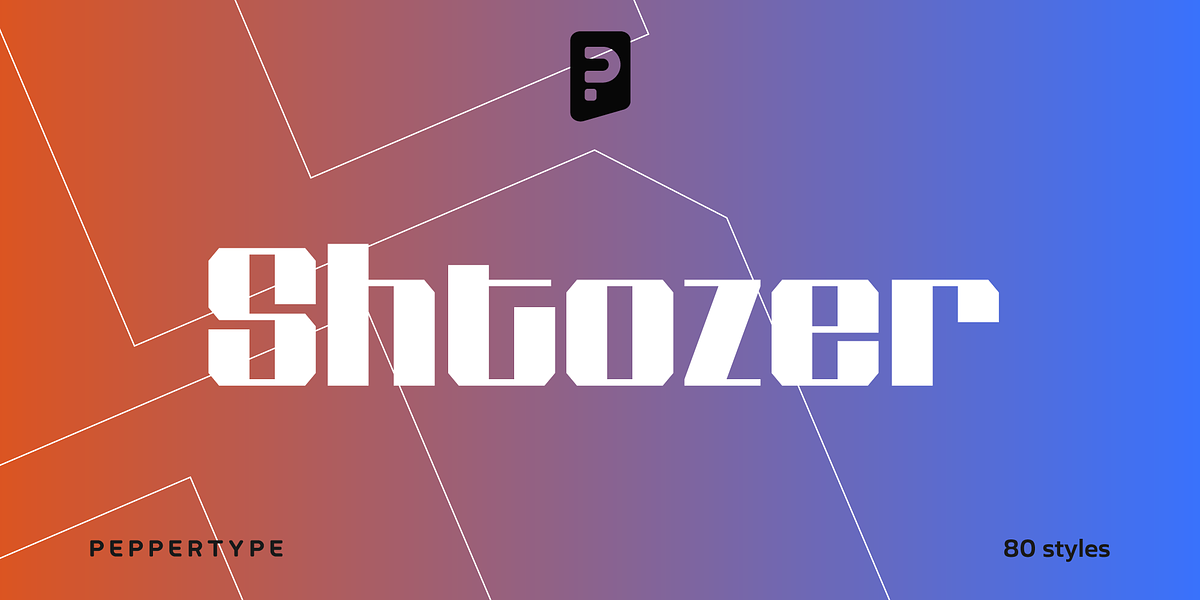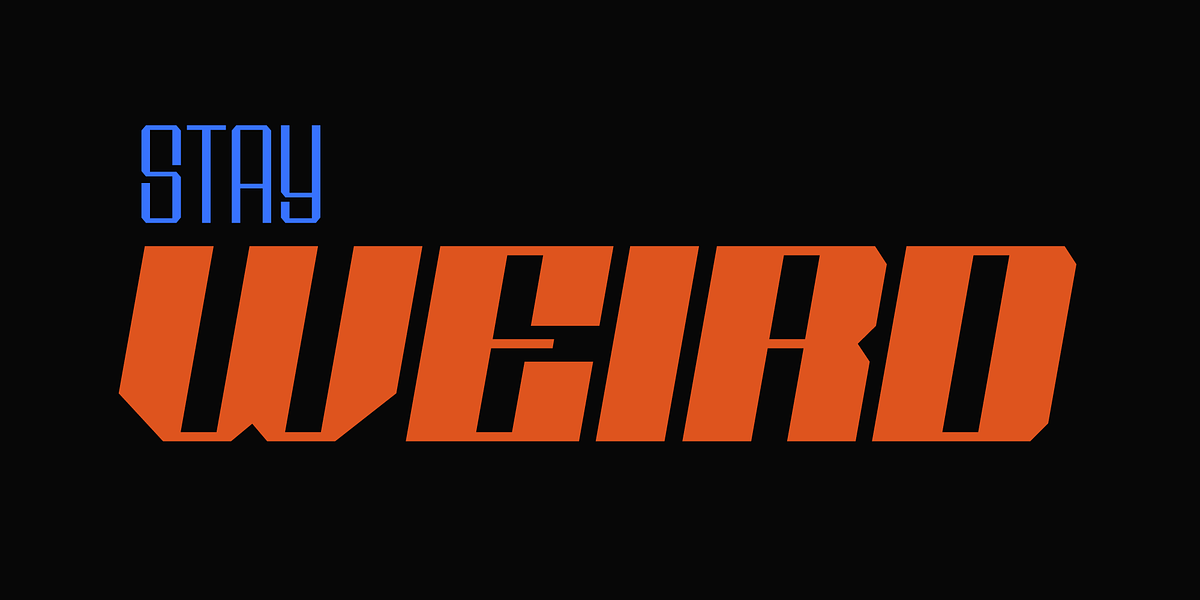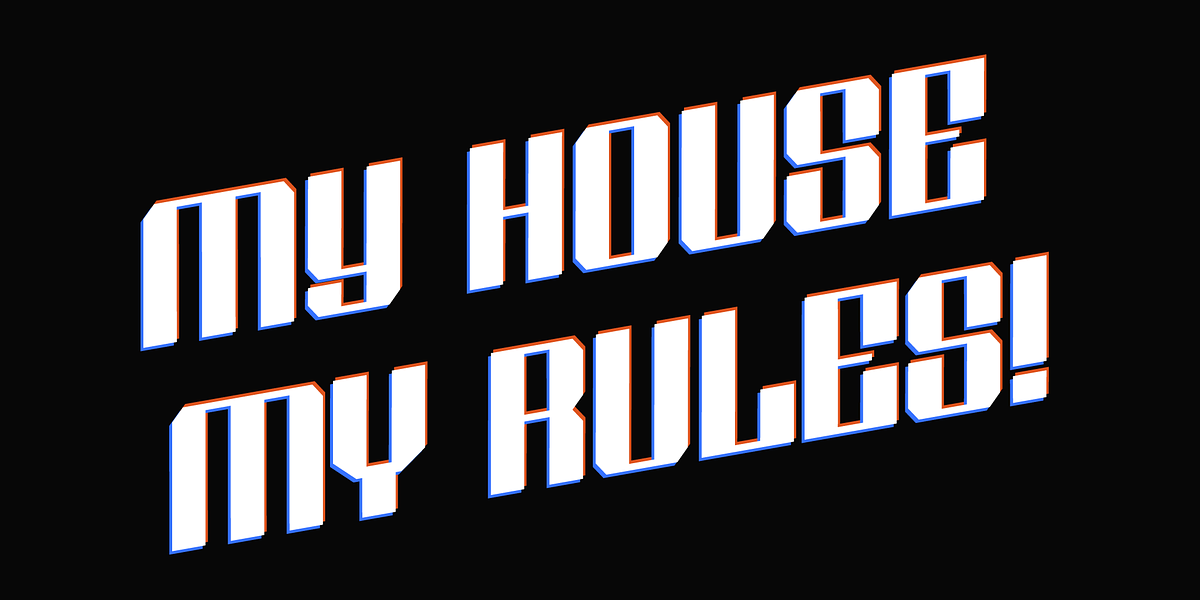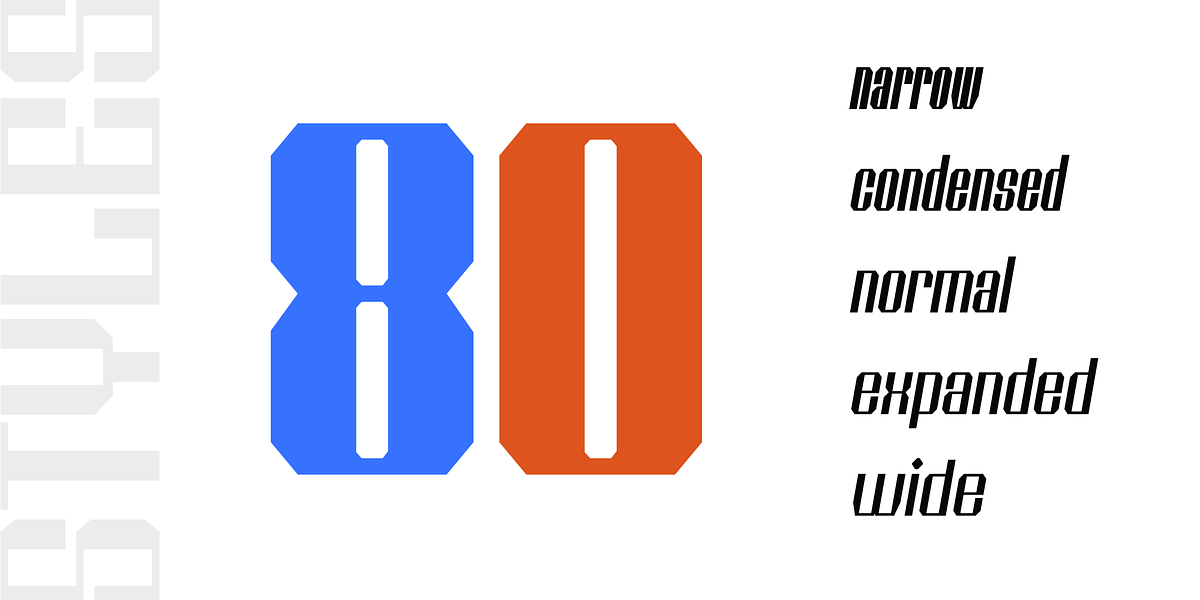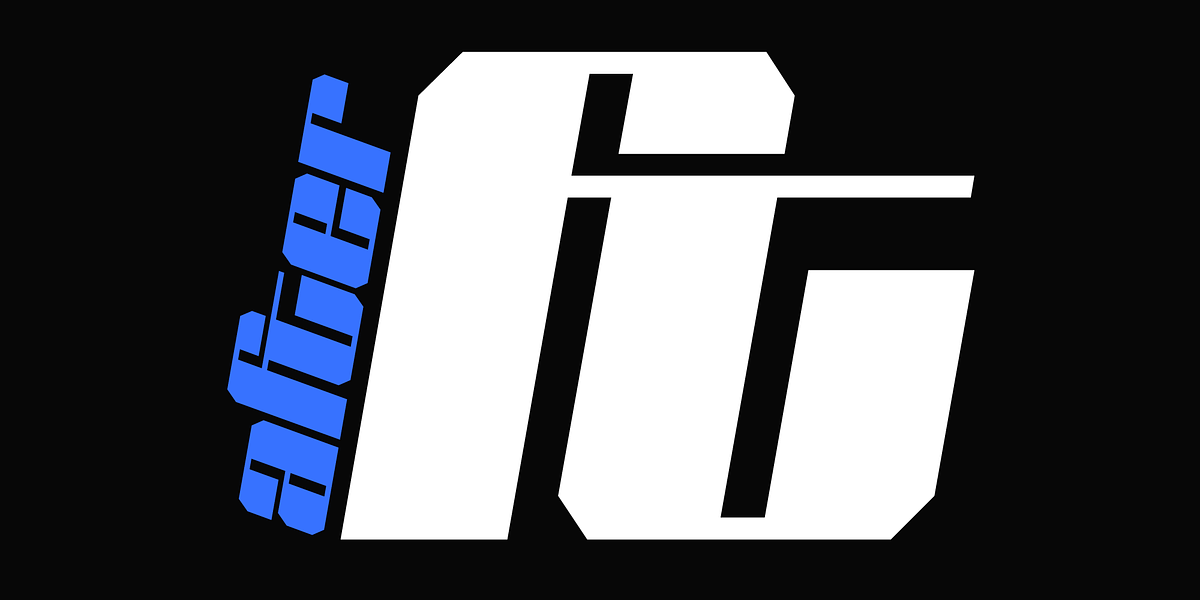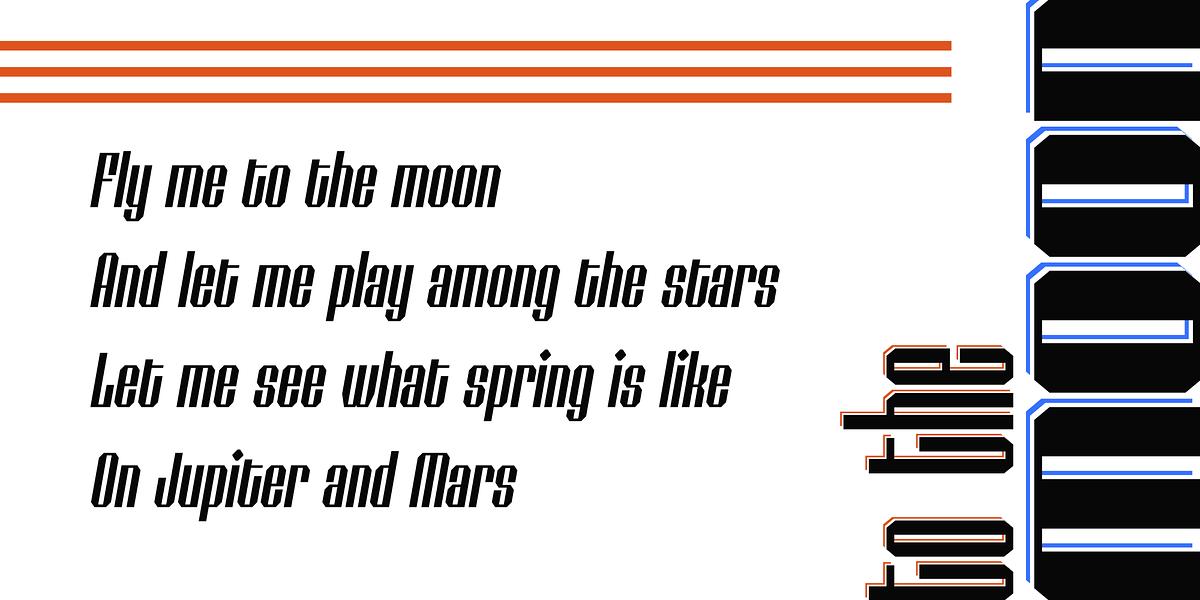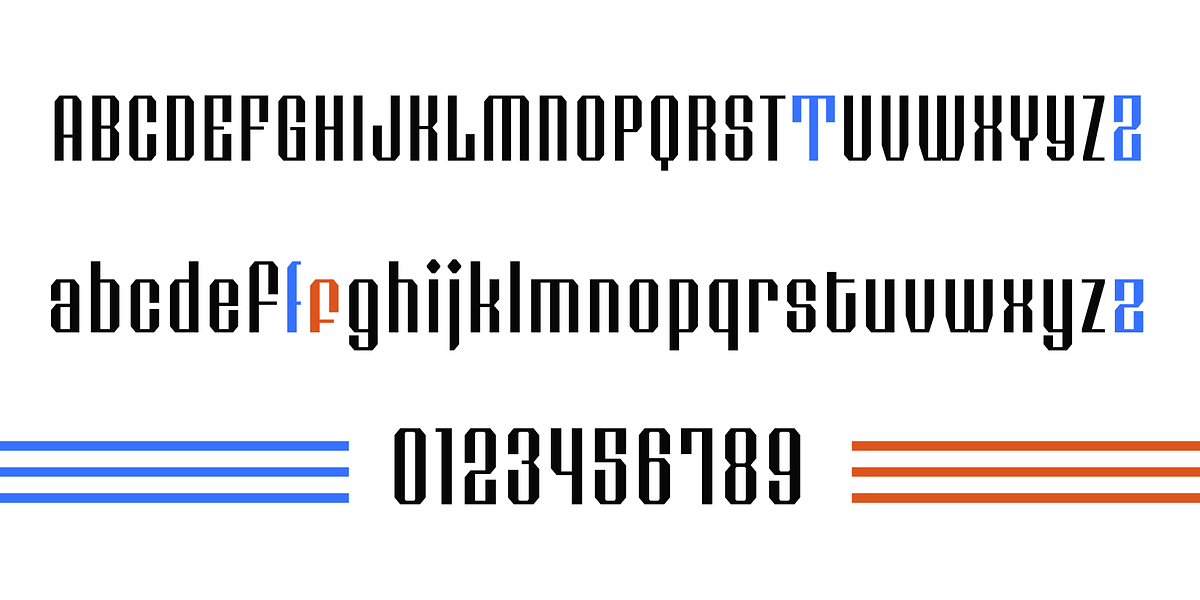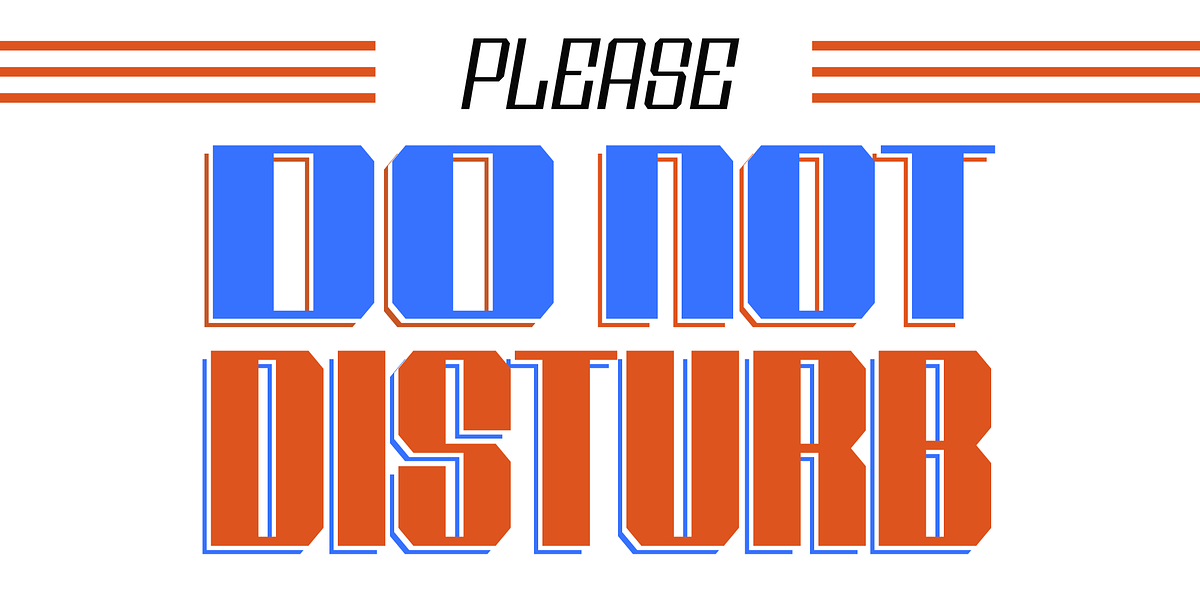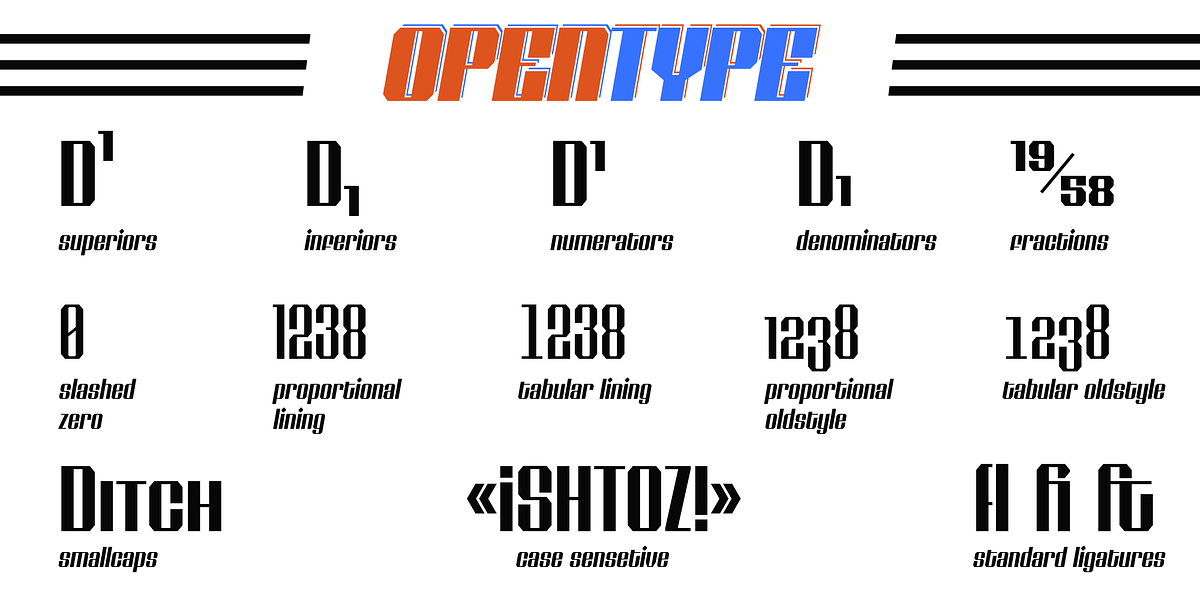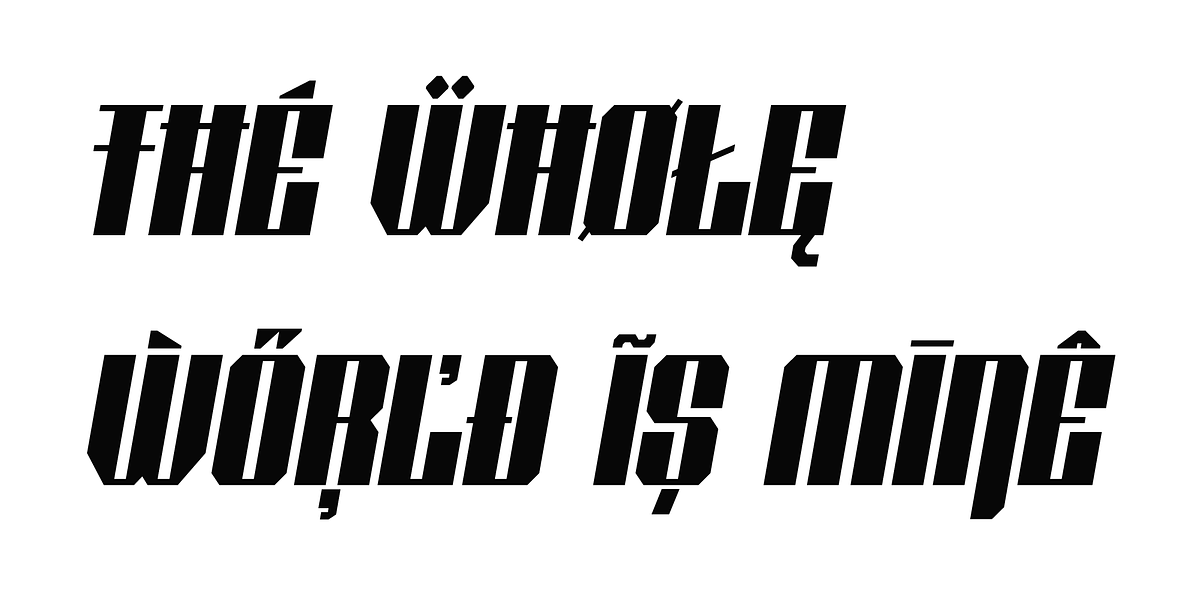
Shtozer
Shtozer is a retro-themed geometric display serif typeface inspired by designs of the 1960s and 1970s, with additional inspiration from Cyrillic ornate lettering known as Vyaz. It offers a comprehensive range of styles with 8 weights and 5 width variations for each weight, all accompanied by their respective obliques, totaling 80 distinct styles. The font family boasts extensive language coverage, including Cyrillic script. It also includes numerous OpenType features and alternate glyphs to enhance the visual appeal of typesetting.